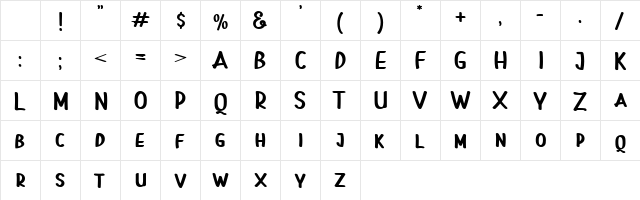
Complete PAINTLOVA V2 - Demo Regular glyph index. Displaying only characters natively supported by PAINTLOVA V2 - Demo Regular font.
PAINTLOVA V2 - Demo is a composed and adaptable typeface that performs quietly and consistently across a wide range of design contexts.